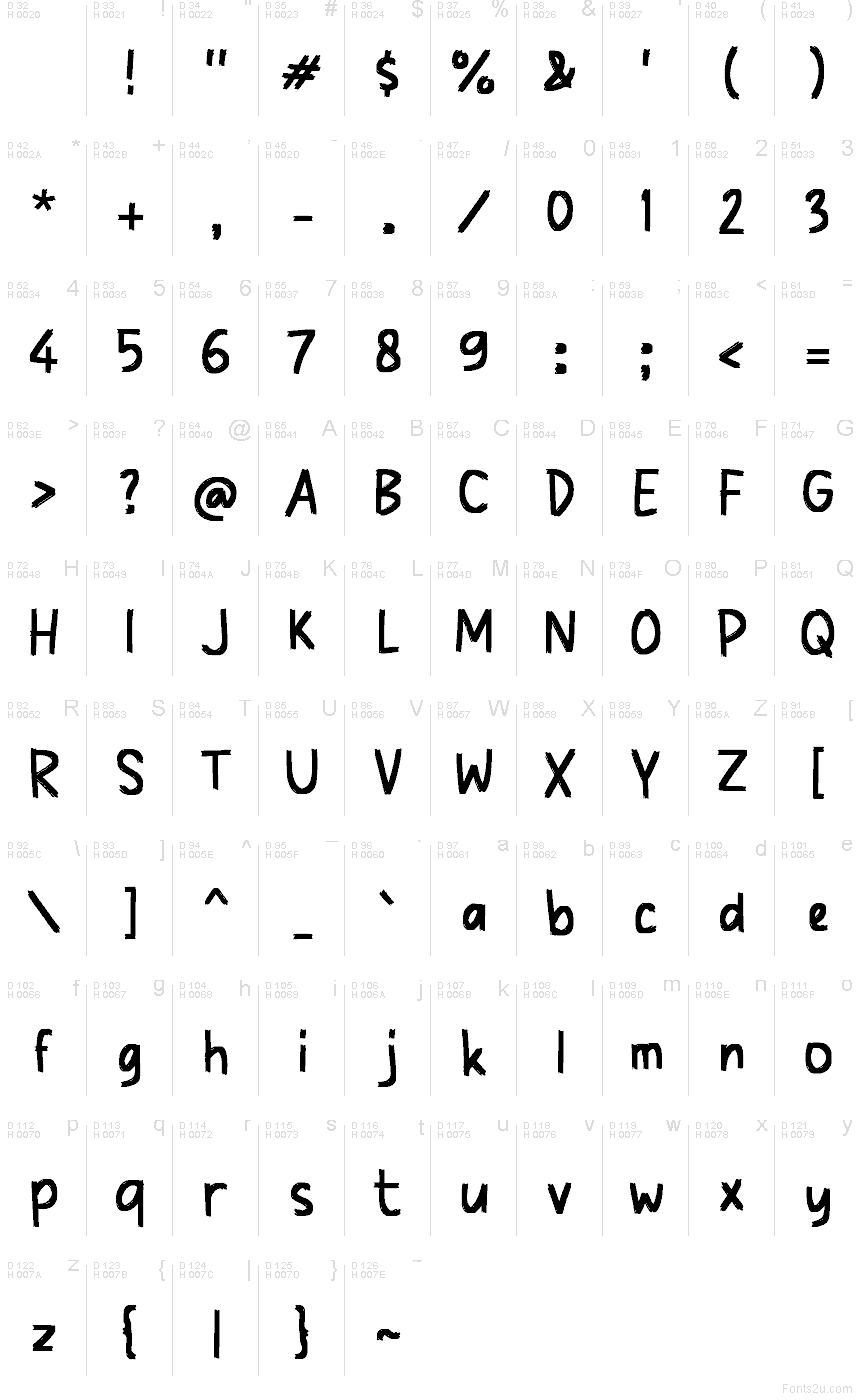
Nembost
Nembost font by wepfont.com is a free brush font that gives you that hand-painted energy without sacrificing clarity. Its letters look like they’ve been drawn with a slightly dry marker—edges are roughened and inky, but the shapes stay upright and easy to read. The strokes feel casual and friendly rather than wild, so you get personality and texture that still hold together in a line of text, even at smaller headline sizes.
Using Nembost, you can bring a loose, sketchy charm to posters, YouTube thumbnails, stickers, children’s book titles, T-shirt graphics, café boards, and playful branding. This free font works beautifully when you let it breathe in larger sizes and pair it with a clean rounded sans serif for body copy. The result is a bold, approachable look that feels hand-made and spontaneous, not messy.